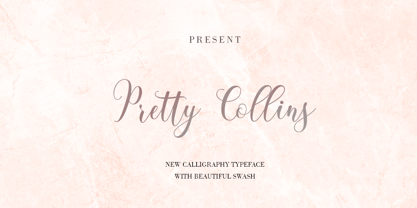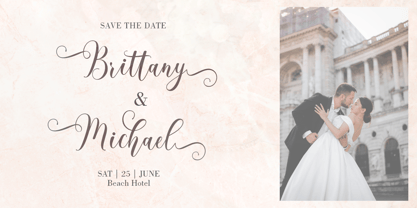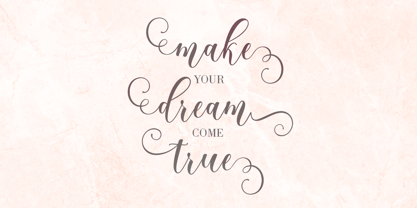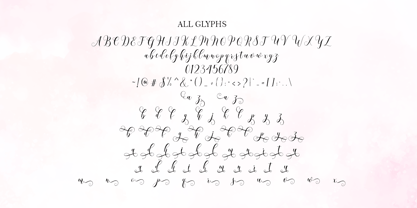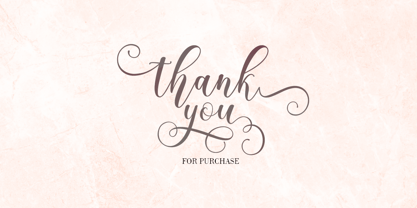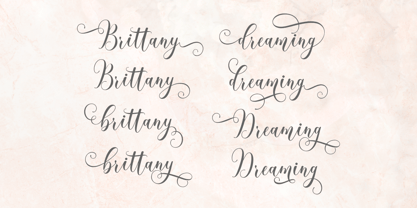
Pretty Collins
by Amarlettering
The Pretty Collins Font Family was designed by Kamaruddin and published by Amarlettering. Pretty Collins contains 1 styles. More about this family
Font First time is a delicate and elegant script font with a modern and sophisticated appearance. Its thin letterforms feature fluid strokes and subtle curves, creating a graceful and refined feel. The font is perfect for designs that require a sense of elegance and sophistication, such as wedding invitations, branding, or editorial design.
Designers: Kamaruddin Kamaruddin
Foundry: Amarlettering